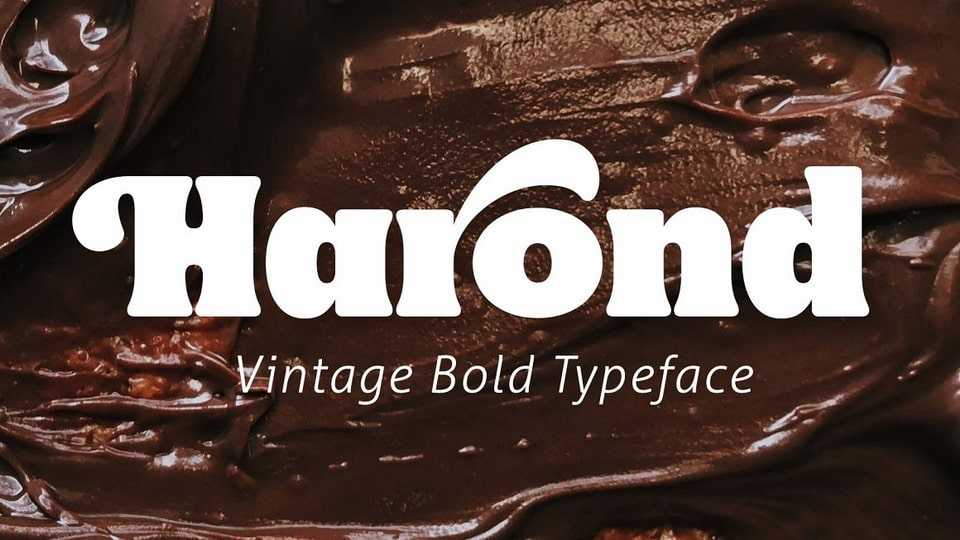
Download Harond font, a bold serif typeface with a retro touch. Inspired by the dynamic and chubby typography style of the 70s, this font exudes a delightful, playful, yet elegant impression, making it ideal for various design themes, especially in the realm of food-related design.